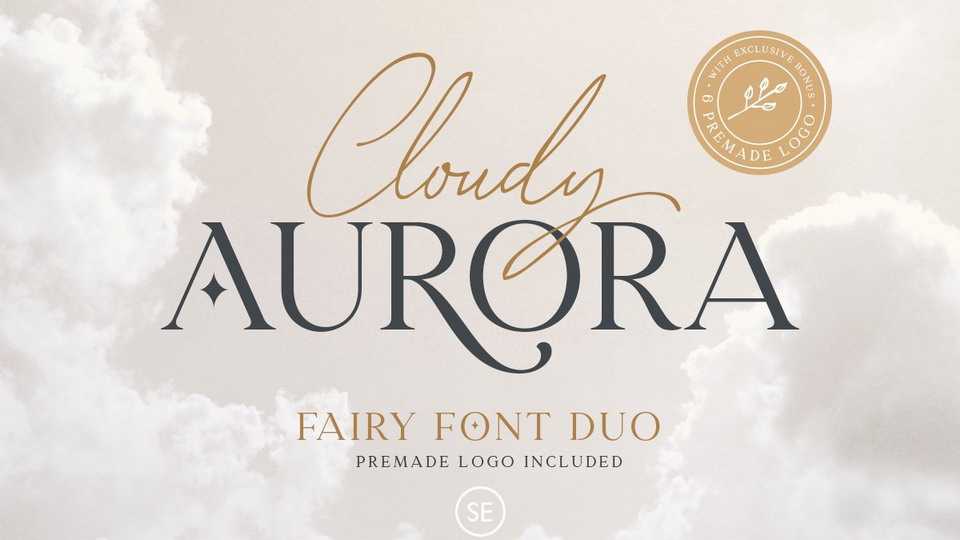
Download Cloudy Aurora font, a stylish signature script typeface with a natural handwriting flow. Incredibly versatile, this font fits a wide pool of designs, elevating them to the highest levels.